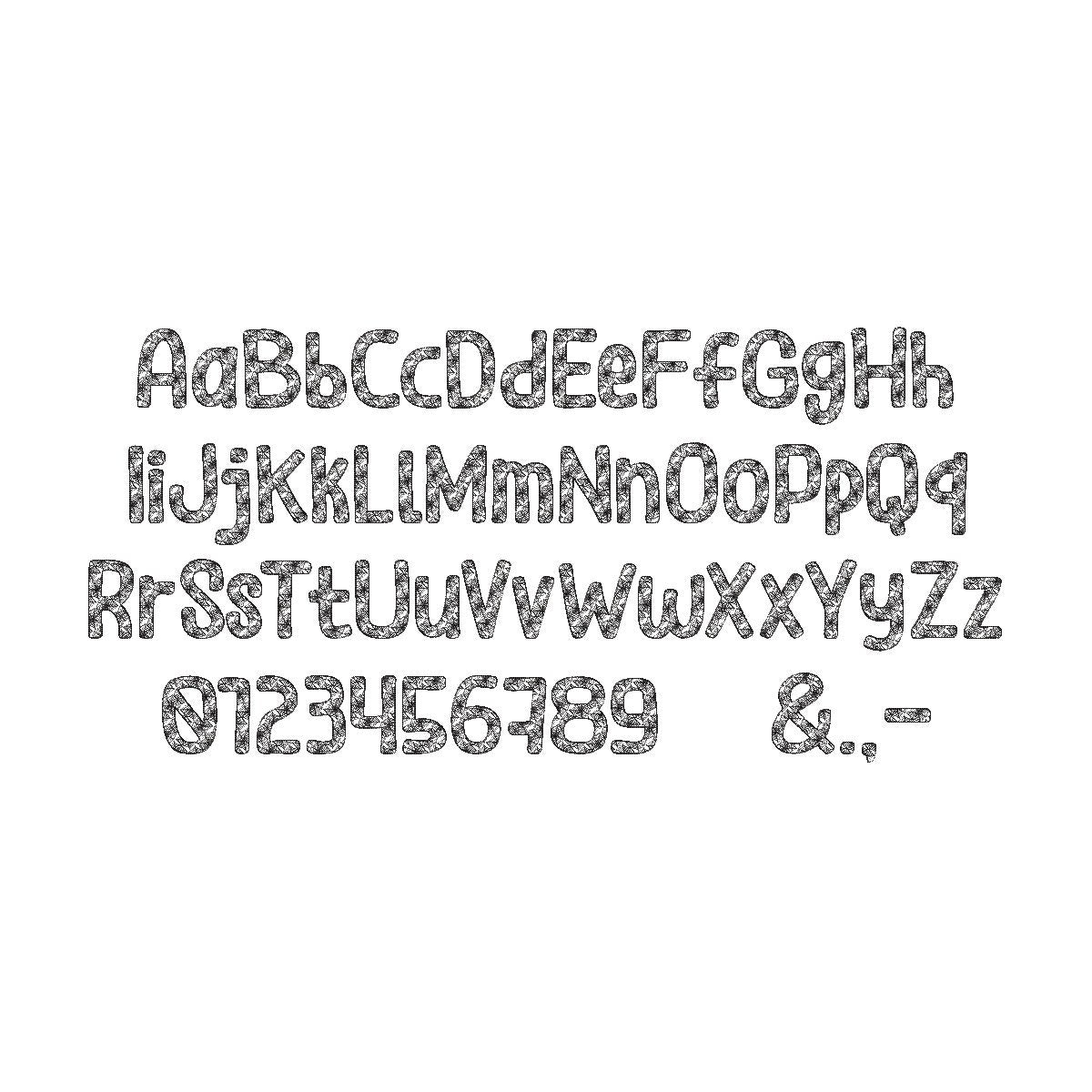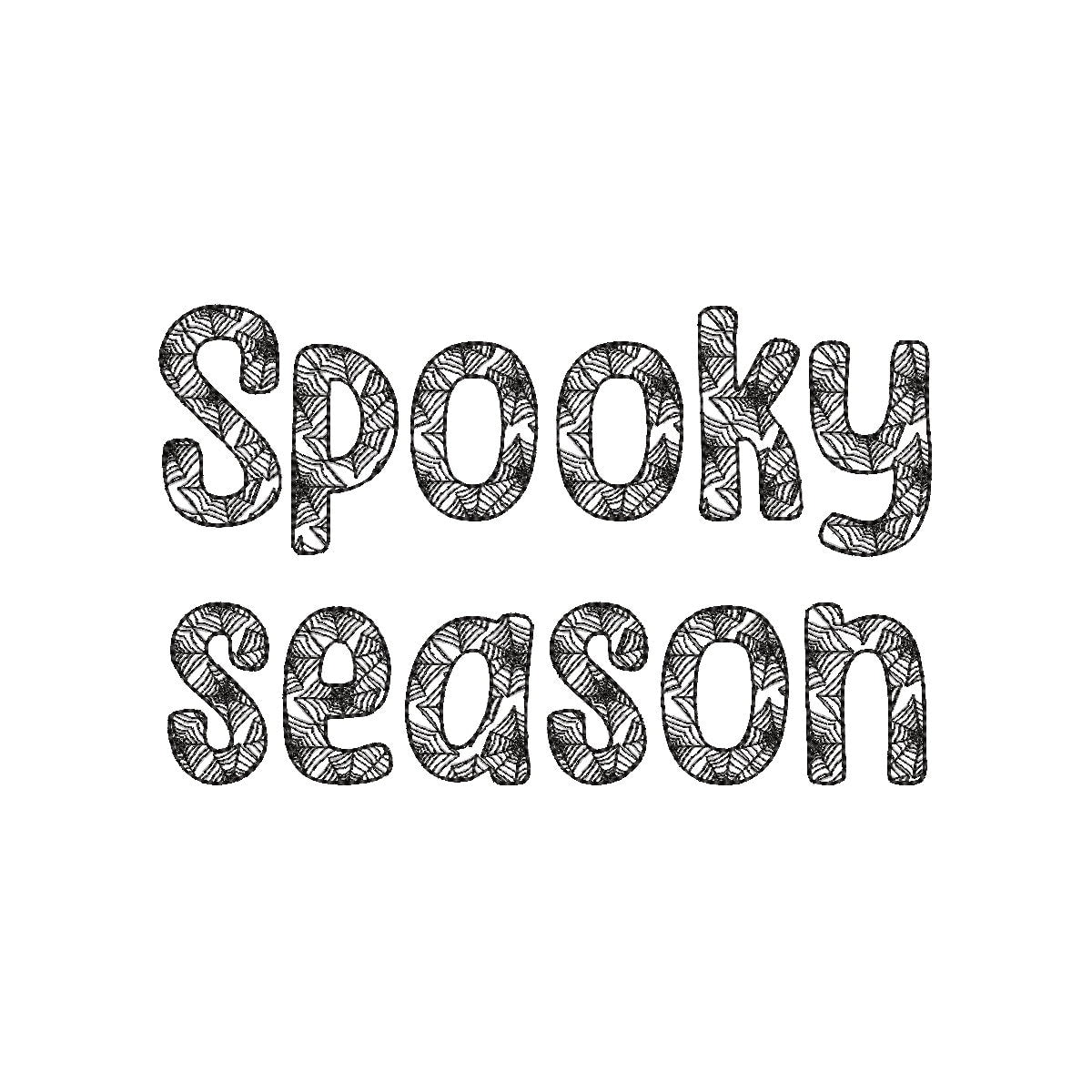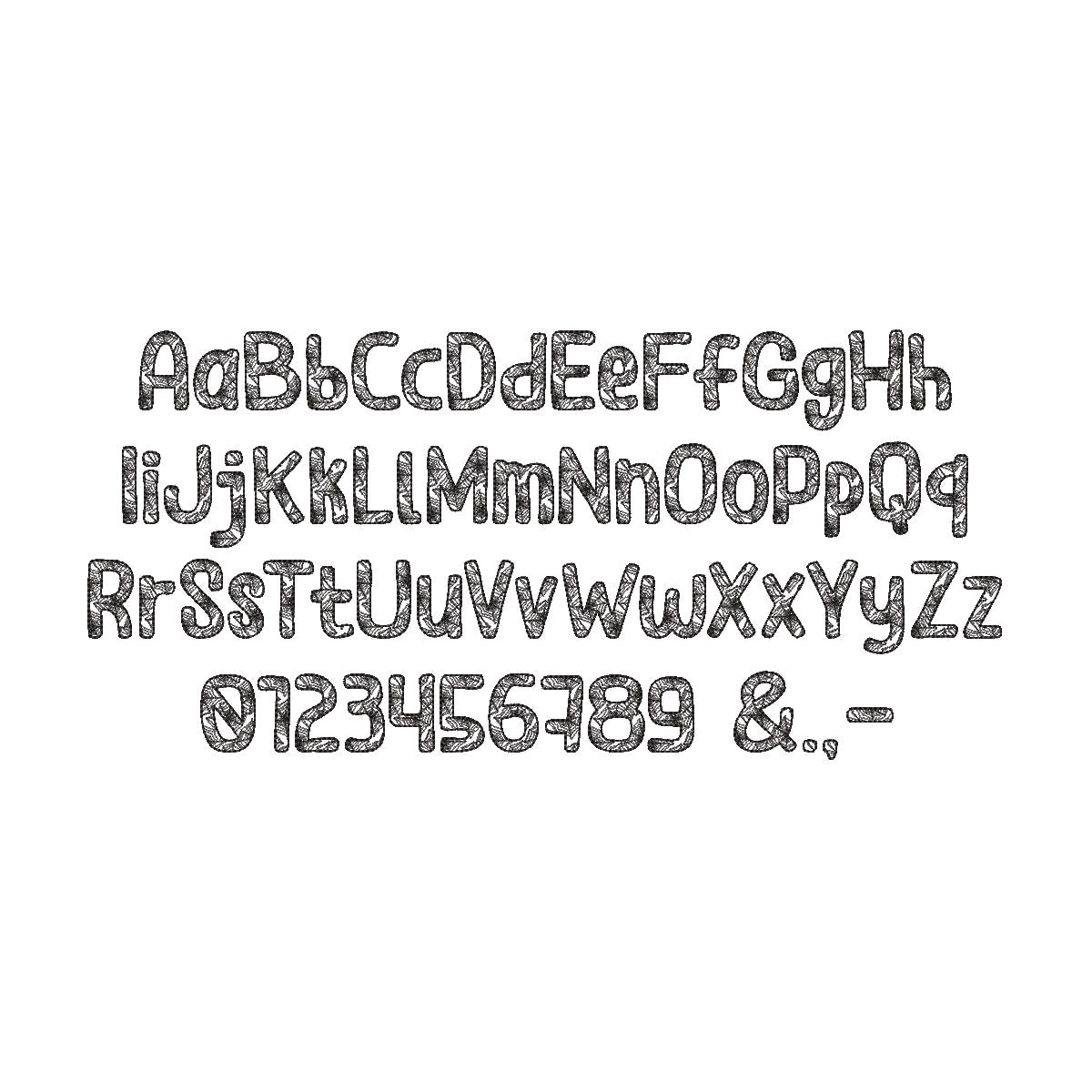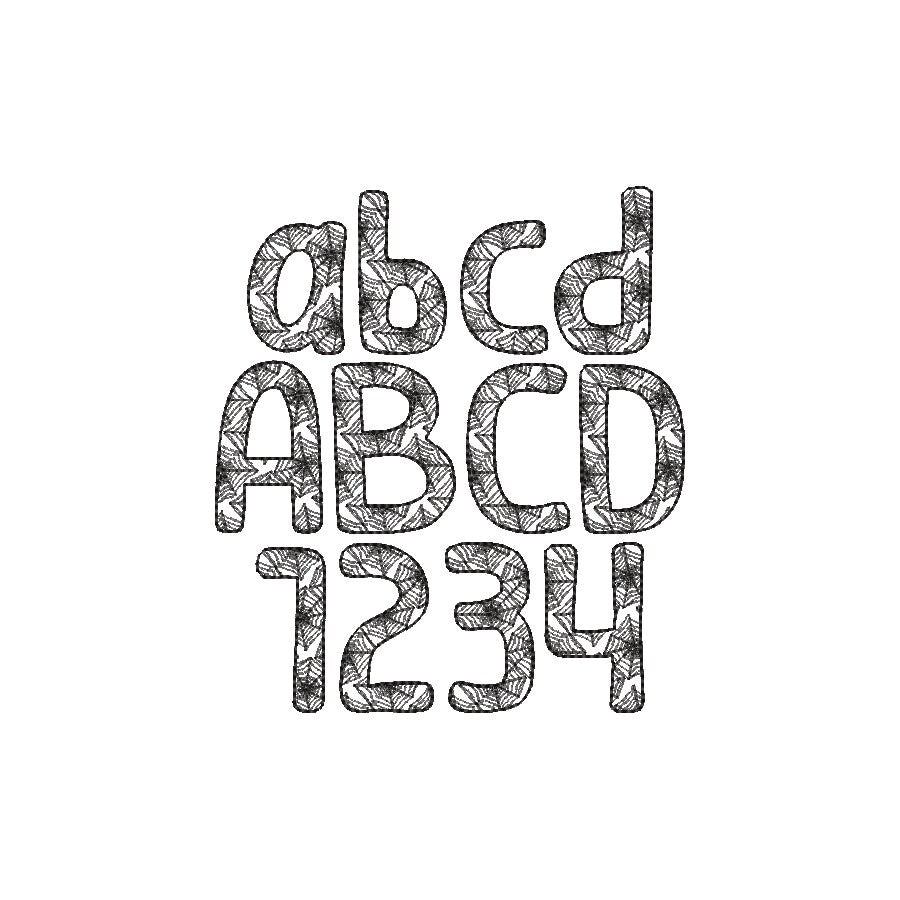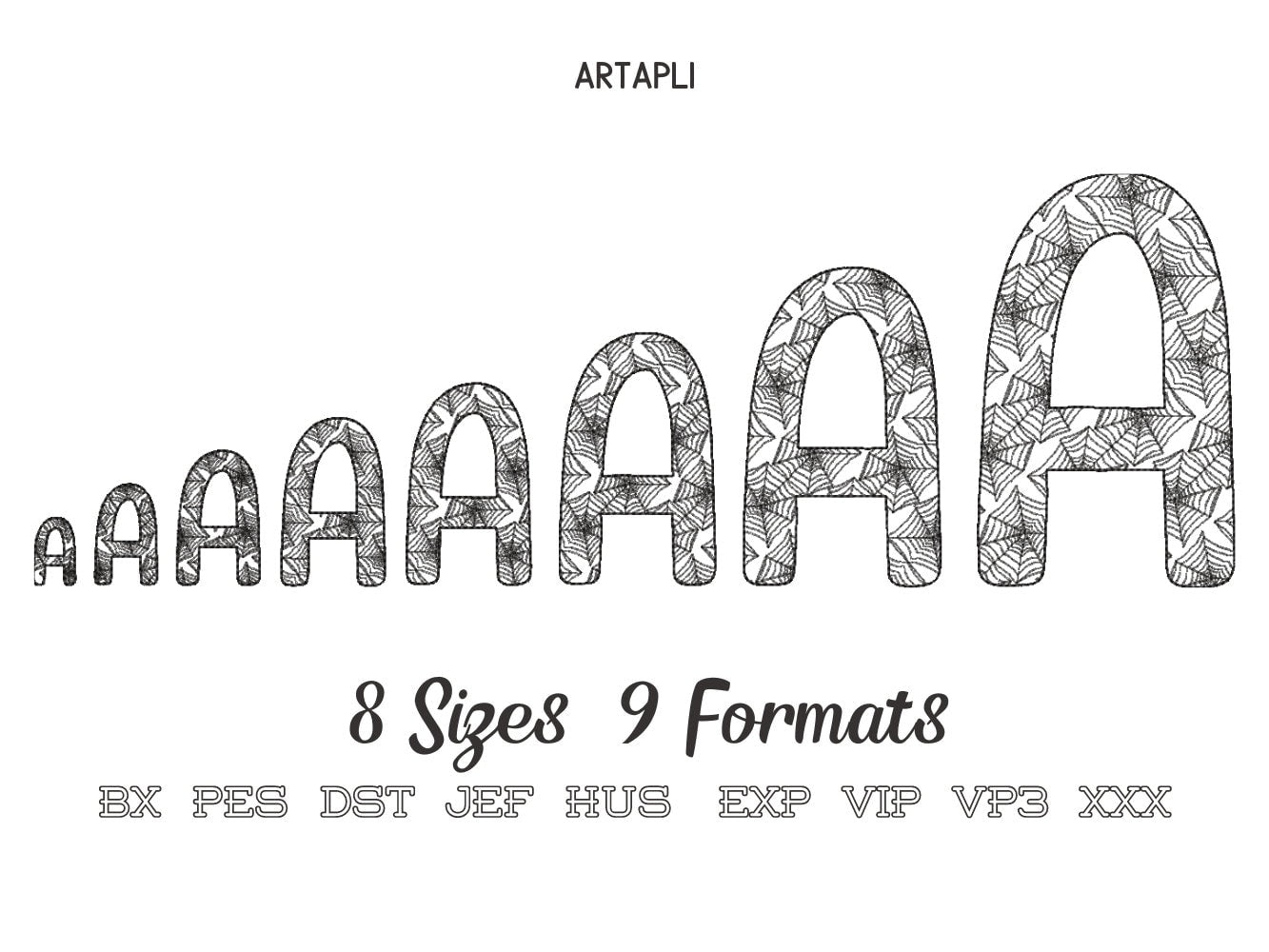
Spooky Halloween Spiderweb Font
Uppercase and lowercase letters, numbers 0 to 9 and punctuation, in eight sizes: 0.8, 1.2, 1.6, 2, 2.4, 3, 3.8 and 5 inches. Quick stitching lets the fabric show through.
- Spider web light stitch Halloween font
- Uppercase and lowercase letters, numbers 0-9, punctuation
- 8 sizes, 0.8 to 5 in